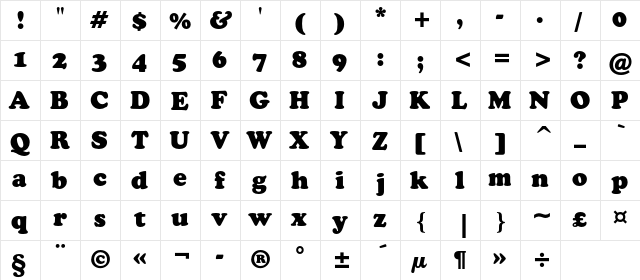
CooperBlackC BT Regular
Design Context for CooperBlackC BT Typeface
CooperBlackC BT is a composed and adaptable typeface that performs quietly and consistently across a wide range of design contexts.